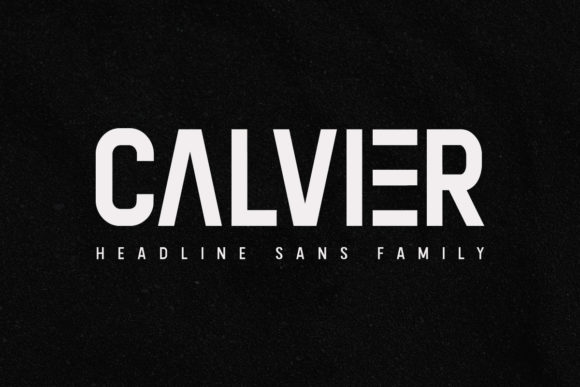
A Striking Sans Serif Family
The Calvier Family Font is a striking sans serif family that includes 16 weights, making it perfect for creating high-impact designs. Its semi-humanist and semi-geometric details give it a unique edge that’s both stylish and attention-grabbing. Whether you’re a designer, crafter, or creative hobbyist, this font is sure to become a favorite in your toolkit.
- ✨ Versatility: With 16 weights to choose from, you can use the Calvier font for a wide range of projects, from bold headlines to body text.
- ✅ Legibility: The font’s semi-humanist details make it easy to read, even at smaller sizes.
- 💥 Impact: The Calvier font is designed to make a statement, and it delivers – perfect for creating eye-catching designs that demand attention.
The Calvier font was designed with the modern designer in mind. Its creator, a renowned typographer, wanted to craft a font that would be both stylish and functional. The result is a font that’s perfect for creating high-impact designs that demand attention.
Q: What is the Calvier font?
A: The Calvier font is a striking sans serif family that includes 16 weights, designed for impact-full and stylish visual impressions.
Q: What are the key features of the Calvier font?
A: The Calvier font features semi-humanist and semi-geometric details, making it perfect for creating high-impact designs.
Q: Is the Calvier font easy to read?
A: Yes, the Calvier font is designed to be legible, even at smaller sizes. Its semi-humanist details make it easy to read and understand.